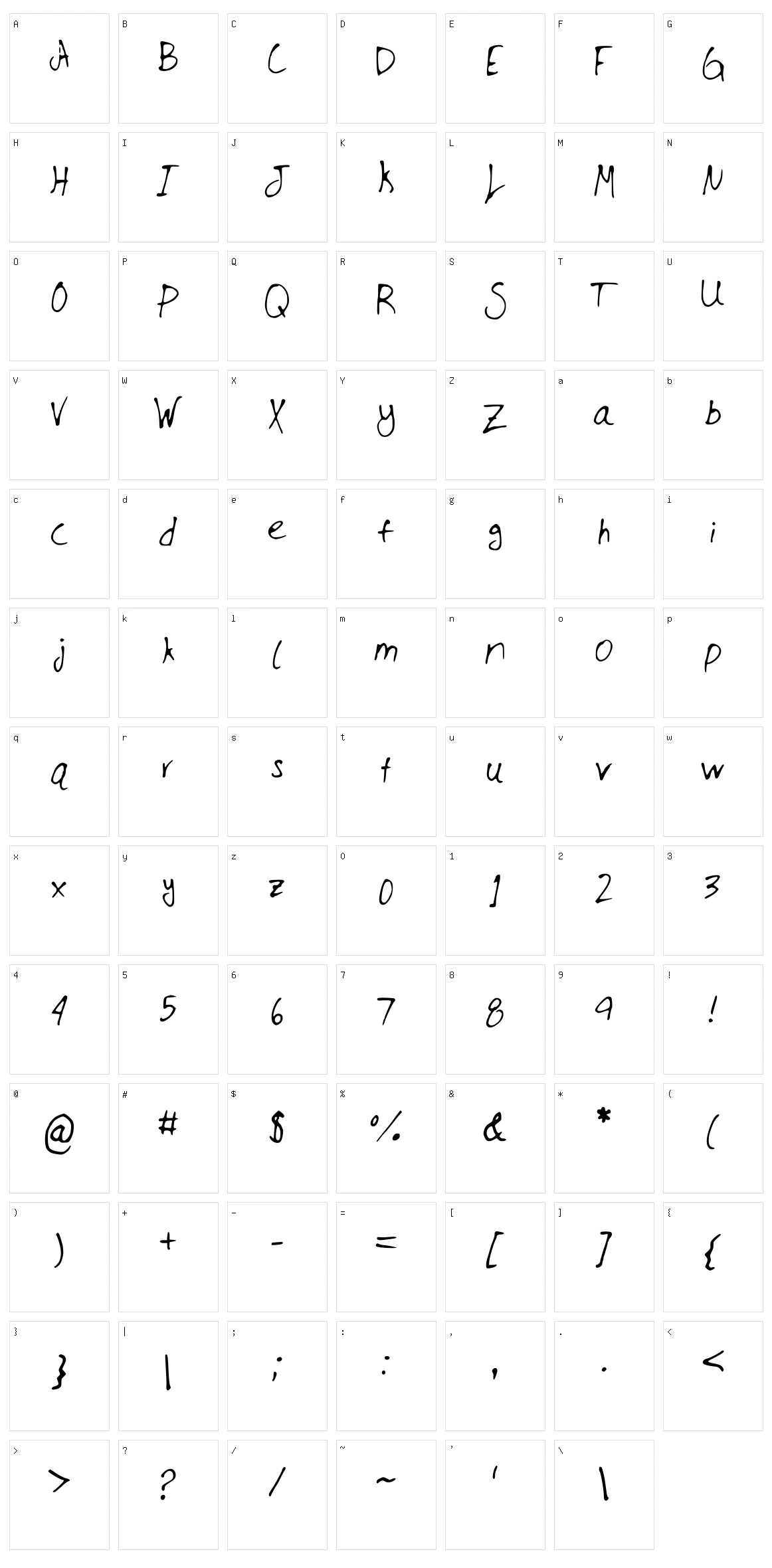
The free font JMillmanuscript is carefully designed by Jackson Millwee, showcasing a thoughtful balance of creativity and usability and falls under the Script font style. When you download the ZIP file, it contains only 18.56 KB of font files, making it lightweight and quick to download. Please review the license details below to understand permitted usage and distribution rights. If license information is not available, we recommend using this font for personal projects only or contacting the author directly for commercial usage permissions.